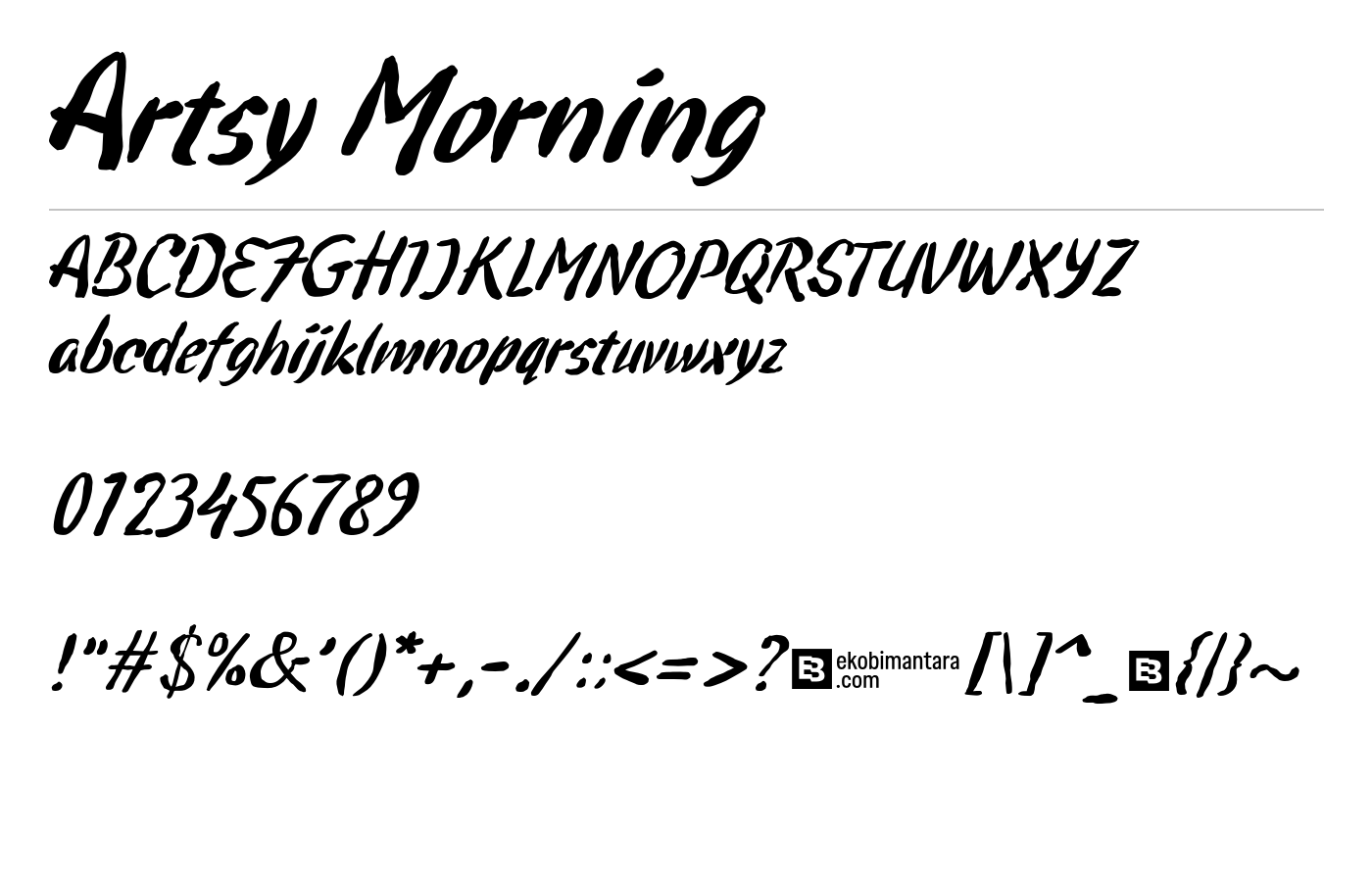
Artsy Morning is a lively script font with a casual, hand-painted feel that brings an artistic and personal touch to any design. Its dynamic strokes and slightly irregular shapes create a sense of movement and warmth, making it perfect for creative projects, branding, invitations, and any context where a friendly, handcrafted look is desired. This font shines in headlines and decorative uses, adding charm and character without sacrificing readability.
Artsy Morning Font
About Artsy Morning Font
| Font family | Artsy Morning Font |
| Designer | Eko Bimantara |